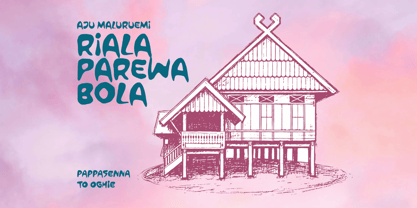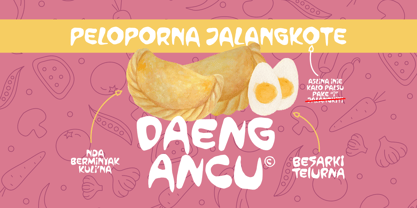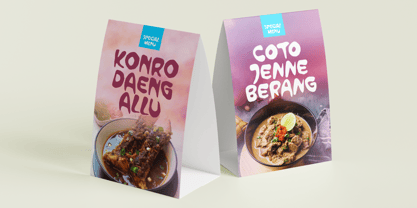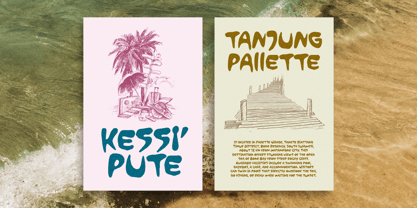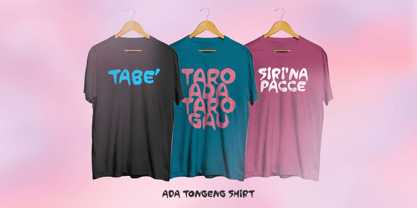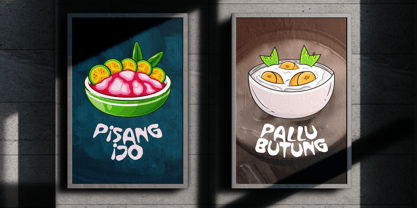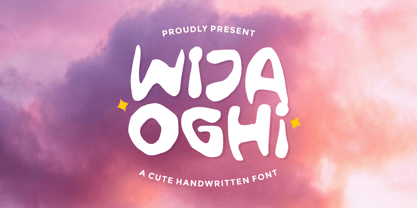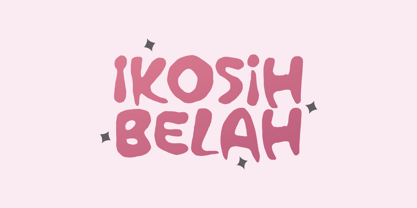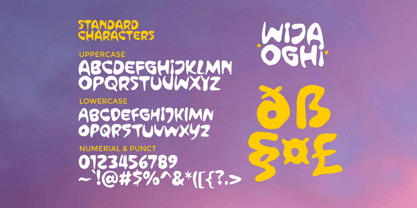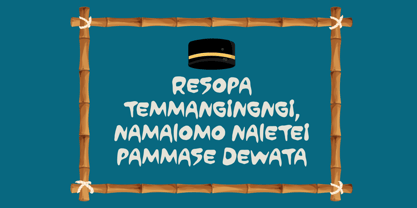
Wija Oghi
by Ergibi Studio
The Wija Oghi Font Family was designed by Riyadh Rahman and published by Ergibi Studio. Wija Oghi contains 1 styles.
Wija Oghi is a cute and playful handwritten font designed to bring warmth and charm to your creative projects. With its soft, rounded shapes and organic strokes, it creates a friendly and approachable feel that instantly captures attention. Perfect for kids-themed designs, branding, social media, packaging, and creative layouts, this font adds a touch of fun and personality to any work. Its natural handwritten style makes every word feel lively, cheerful, and full of character. I hope you enjoy this font. If you have any questions please don't hesitate to drop me a message Ergibi Studio
Designers: Riyadh Rahman
Publisher: Ergibi Studio
Foundry: Ergibi Studio